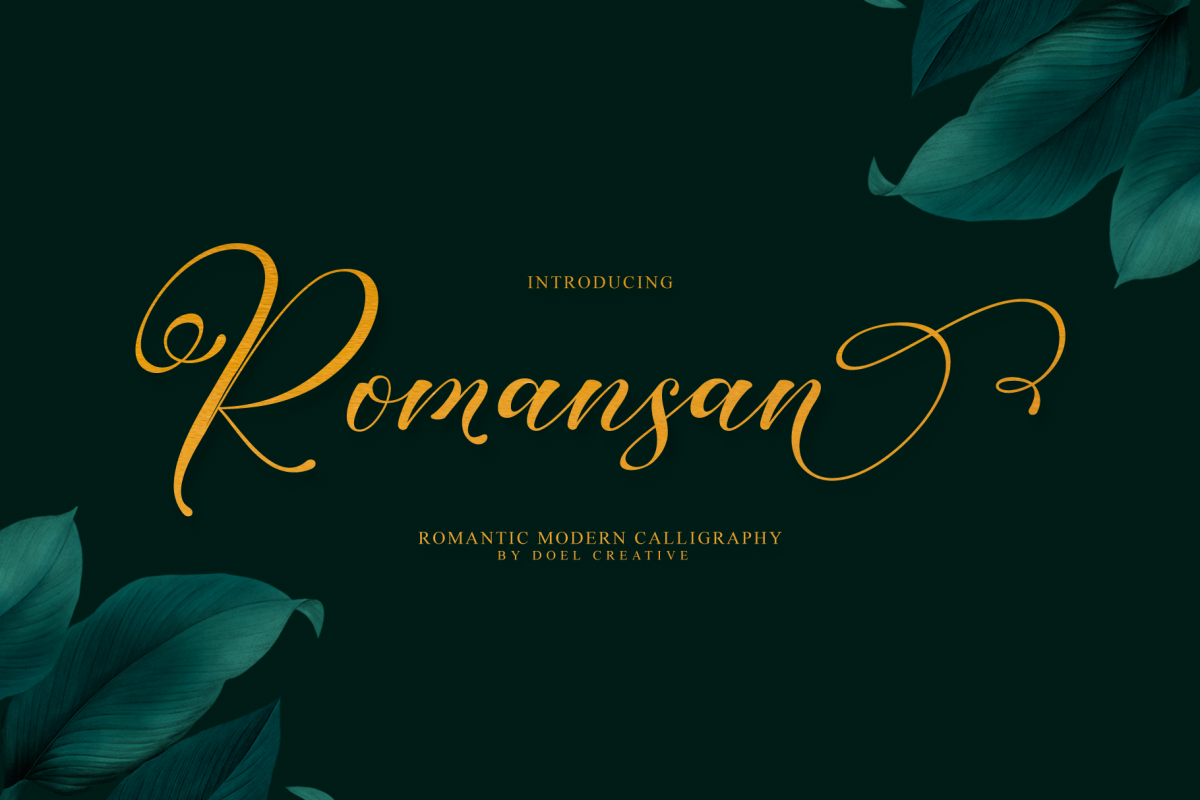
Romansan | Romantic Calligraphy
Romansan
Romansan is a new romantic modern calligraphiy font with exquisite accents, and distinctive style that is perfect for your branding design. Modern calligraphy with many alternatives. Now this is an opentype! It's smart and in line with your wishes! You are welcome to use it, suitable for various purposes: logo, signatures, corporate symbol, wedding invitation, title, creative, t-shirt, business card, letterhead, nameplate, headings, label, poster, news, badge, letterhead, cutting, hot stamping, quotation, etc. Romansan Features 513 glyphs and alternative characters. Includes the initial letter to terminal, alternative, ligature and multiple language support.
The Features of this fonts is ;
• Standart ligatures
• Discretionary ligatures
• Stylistic sets
• PUA Unicode (Private Use Areas)